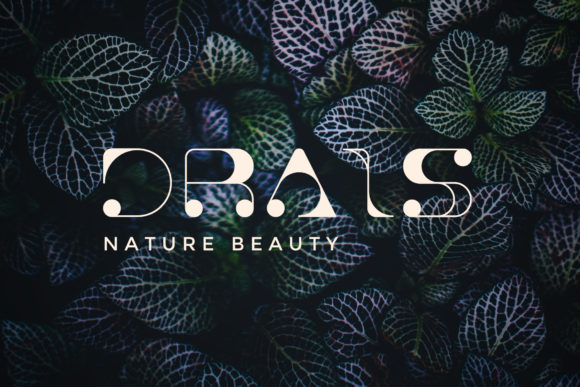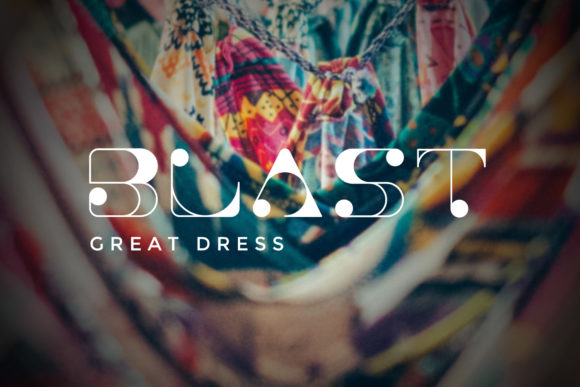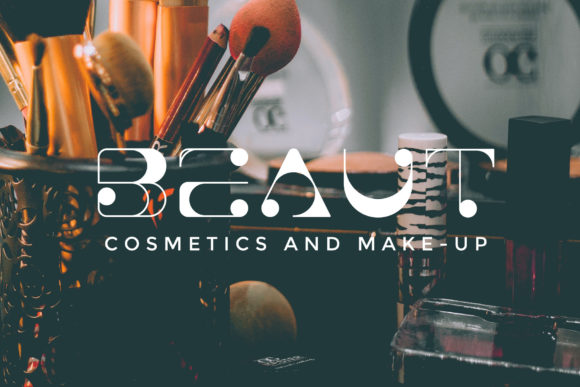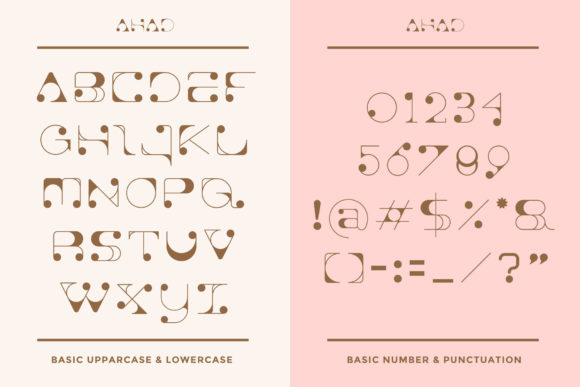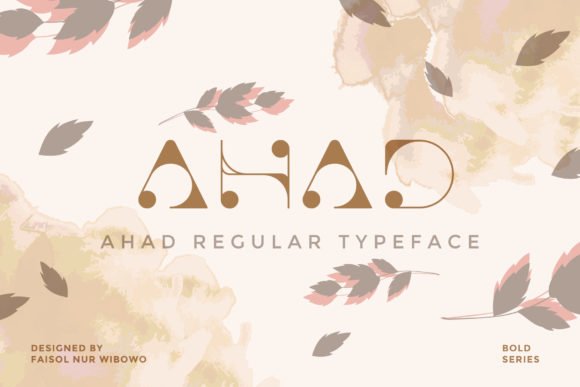
The Quest for the Perfect Font: Discovering Ahad
I’ll never forget the time I was working on a project for a trendy boutique hotel, and I just couldn’t find the right font to capture their playful, modern vibe. I scrolled through page after page of Google Fonts, tried out dozens of paid fonts, but nothing seemed quite right. That was until I stumbled upon Ahad – a whimsical and uniquely designed display font that instantly won me over.
First Impressions: Ahad Font Review
Ahad is a stunning display font that’s perfect for adding a cool, modern touch to your designs. Here’s what I love about it:
• ✨ Unique and quirky design that’s sure to turn heads
• ✅ Highly legible, even at smaller sizes
• 💥 Extensive character set, including glyphs and stylistic alternates
• 🎉 Perfect for titles, headings, and short paragraphs
Of course, no font is perfect, and Ahad does have a few small quirks:
• 🤔 May not be the best choice for body text or longer paragraphs
• ⚠️ Some users may find the font a bit too bold or attention-seeking
The Story Behind Ahad
Ahad was designed by a team of creatives who wanted to create a font that was both unique and versatile. Inspired by modern design trends and a passion for typography, Ahad was born – a font that’s perfect for designers, crafters, and creative hobbyists alike.
What type of designs is Ahad best suited for? Ahad is perfect for designs that require a modern and quirky touch, such as titles, headings, and short paragraphs.
Is Ahad available in different weights or styles? Yes, Ahad comes in a range of weights and styles, making it versatile and adaptable to different design needs.